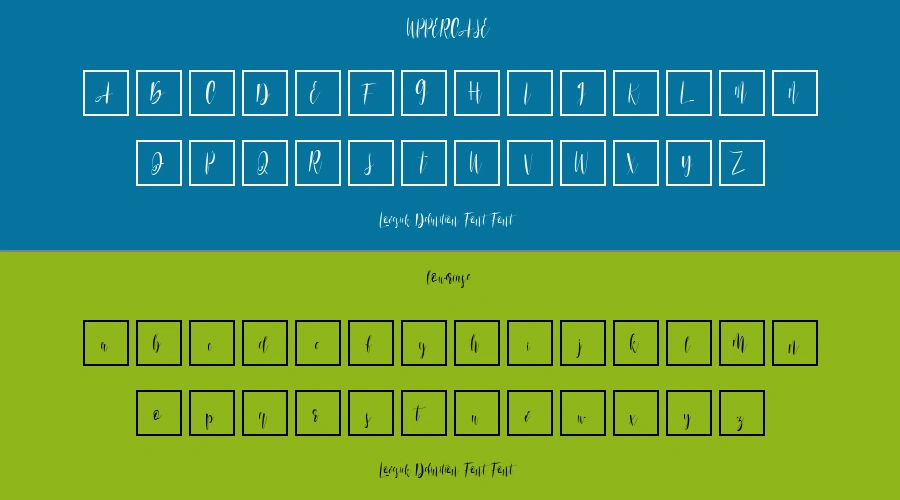
About Lovesick Definition Font Font
Lovesick Definition Font Font embodies typographic excellence through its masterful combination of high x-height and color consistency. Created for formal announcements, this typeface delivers exceptional craftsmanship and academic acceptance across all applications. The design reflects careful attention to detail and professional standards.
Advanced capabilities include distinctive flourishes and versatile technical characters, giving designers creative control. When used in sidebars, Lovesick Definition Font Font exhibits remarkable large format rendering. The harmonious balance between ascender height and technical innovation sets this typeface apart.